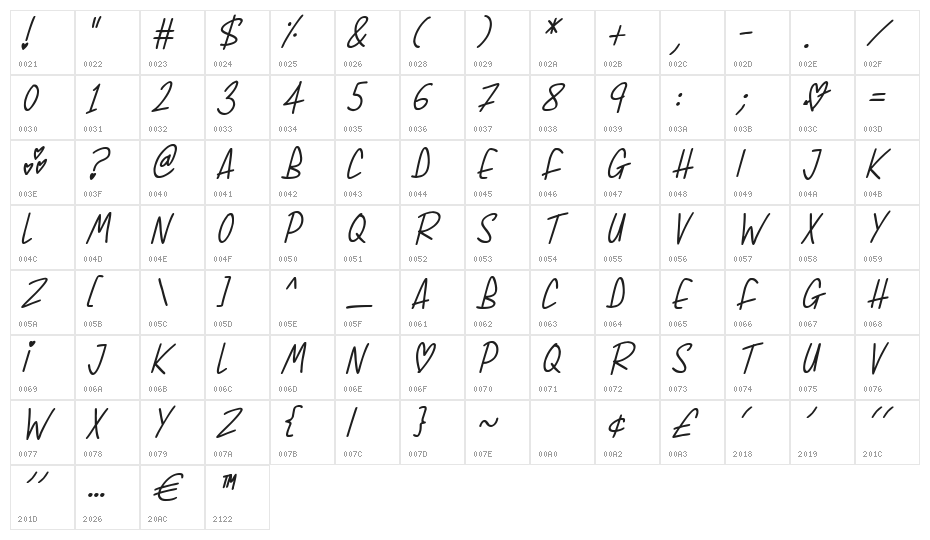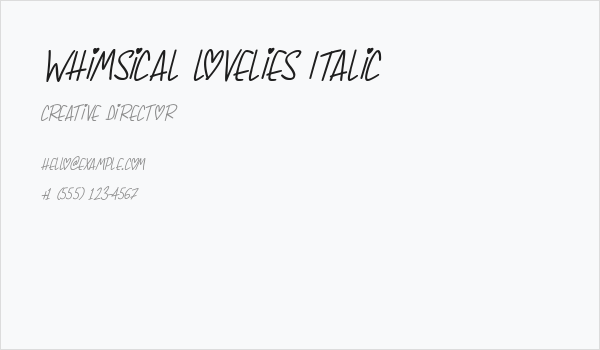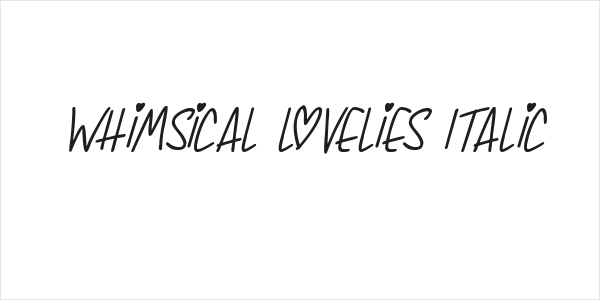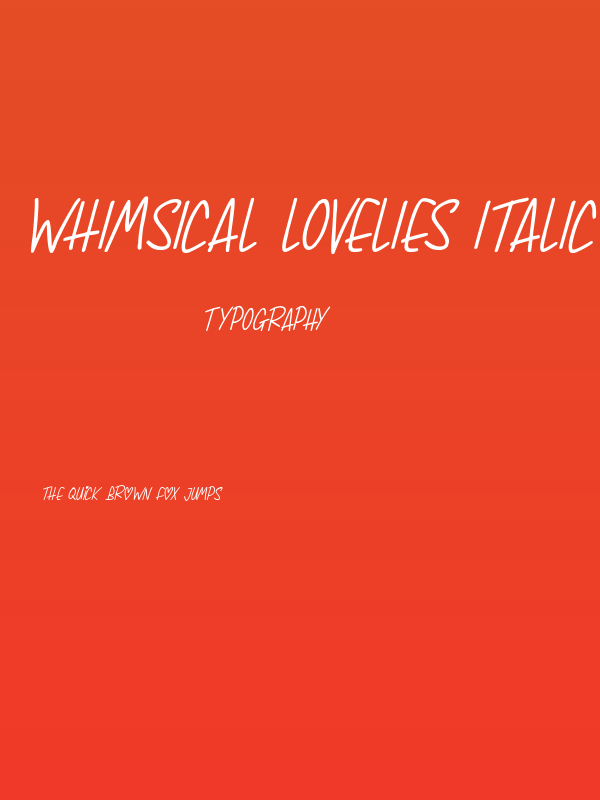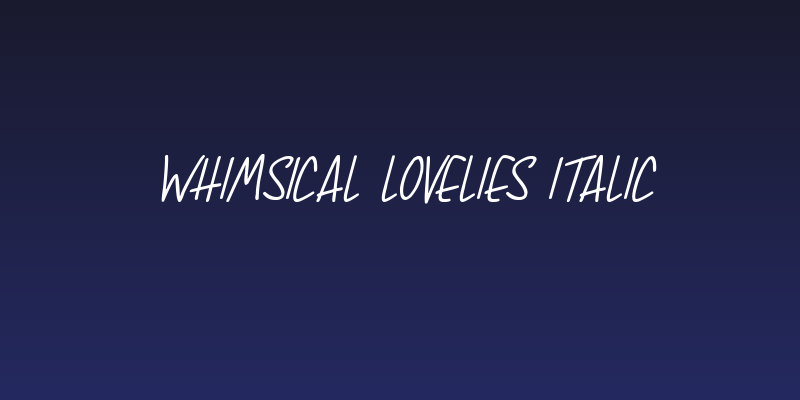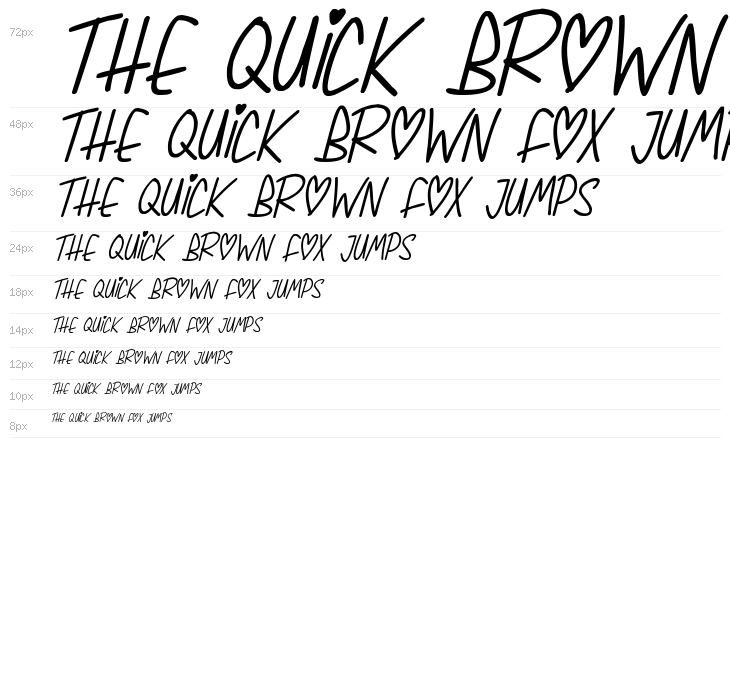
Whimsical Lovelies Italic Font
Whimsical Lovelies Italic Description
This font exudes a playful and whimsical charm, characterized by its handwritten style and italic slant. The letters are fluid and dynamic, with a consistent stroke width that maintains readability while adding a touch of personality. The uppercase and lowercase letters are well-balanced, and the inclusion of heart-shaped elements within certain characters adds a unique and endearing touch. The numerals and special characters are crafted with the same lively spirit, making this font suitable for creative and informal applications.
| Overall Style | Whimsical |
| Use Case | Logos, Headlines, Informal Text |
| Proposed Projects | Ideal for greeting cards, children's book covers, playful branding, and social media graphics. |